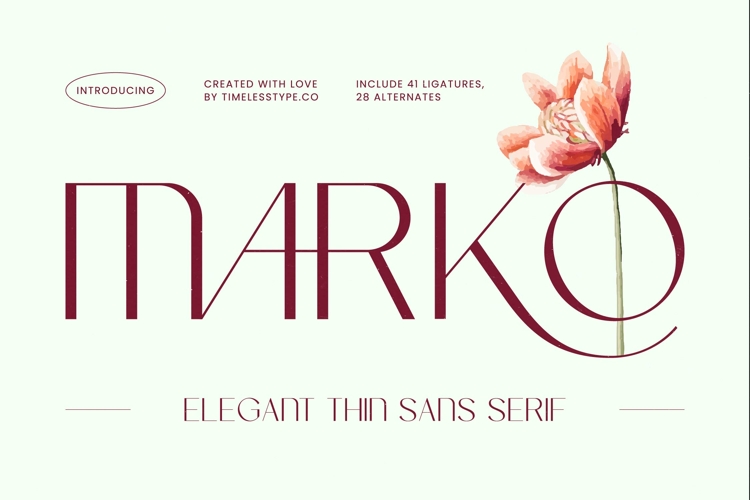
Marko - Elegant Thin Sans Serif Font
Elevate your design projects with the unparalleled sophistication of Marko - Elegant Thin Sans Serif Font. This exquisite typeface embodies a perfect blend of minimalist aesthetics and timeless elegance, crafted to impart a sense of refined luxury to any visual communication. Its delicate yet impactful strokes ensure your message is delivered with undeniable grace and modern allure, setting a distinguished tone from the first glance.
Experience unparalleled design flexibility with Marko - Elegant Thin Sans Serif Font, featuring an impressive collection of 41 ligatures and 28 alternates. These meticulously designed characters allow for truly customizable typography, adding a bespoke touch that distinguishes your work. The font's high-contrast structure and clean lines guarantee superb readability, making it ideal for both captivating headlines and elegant body text.